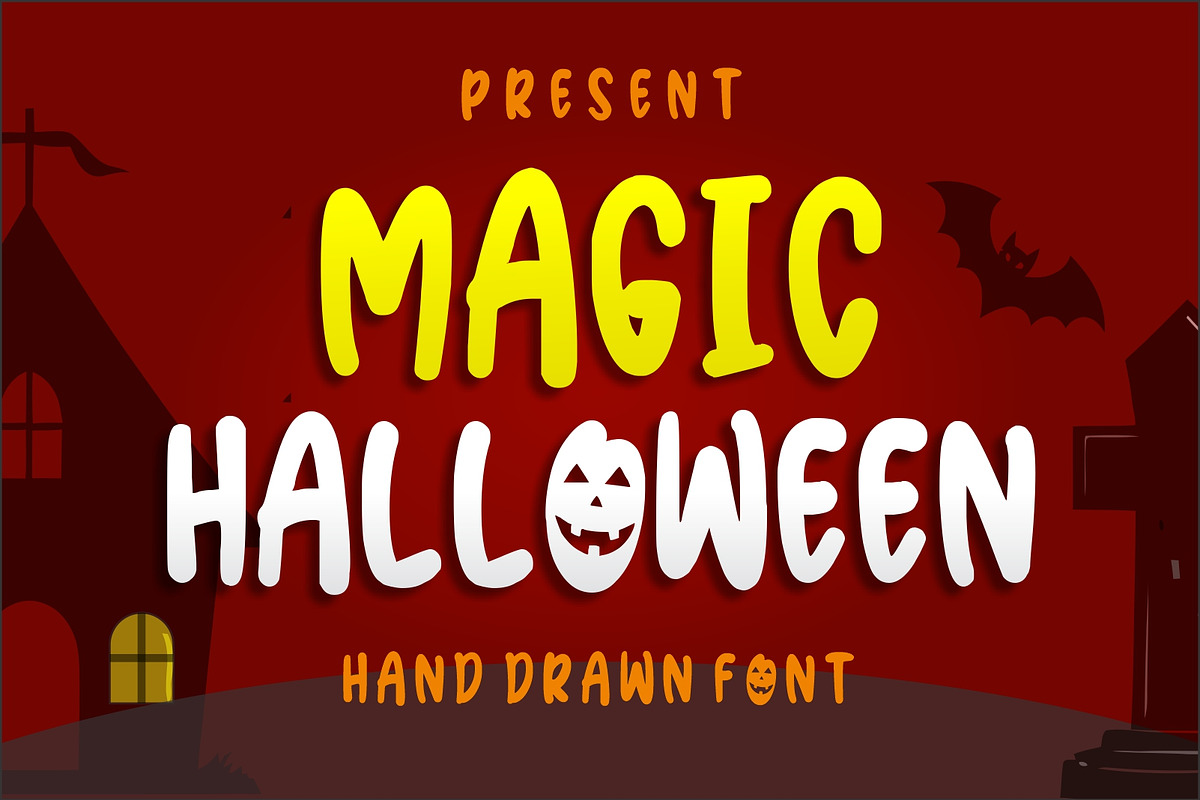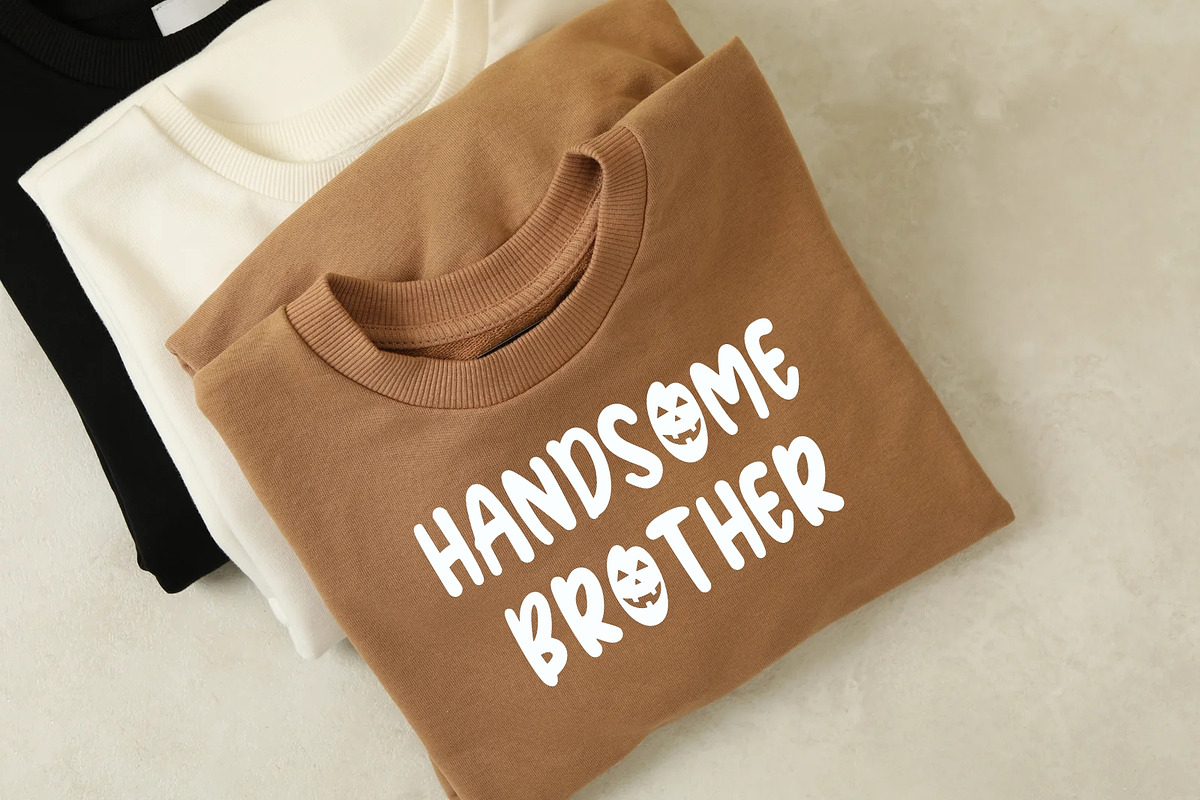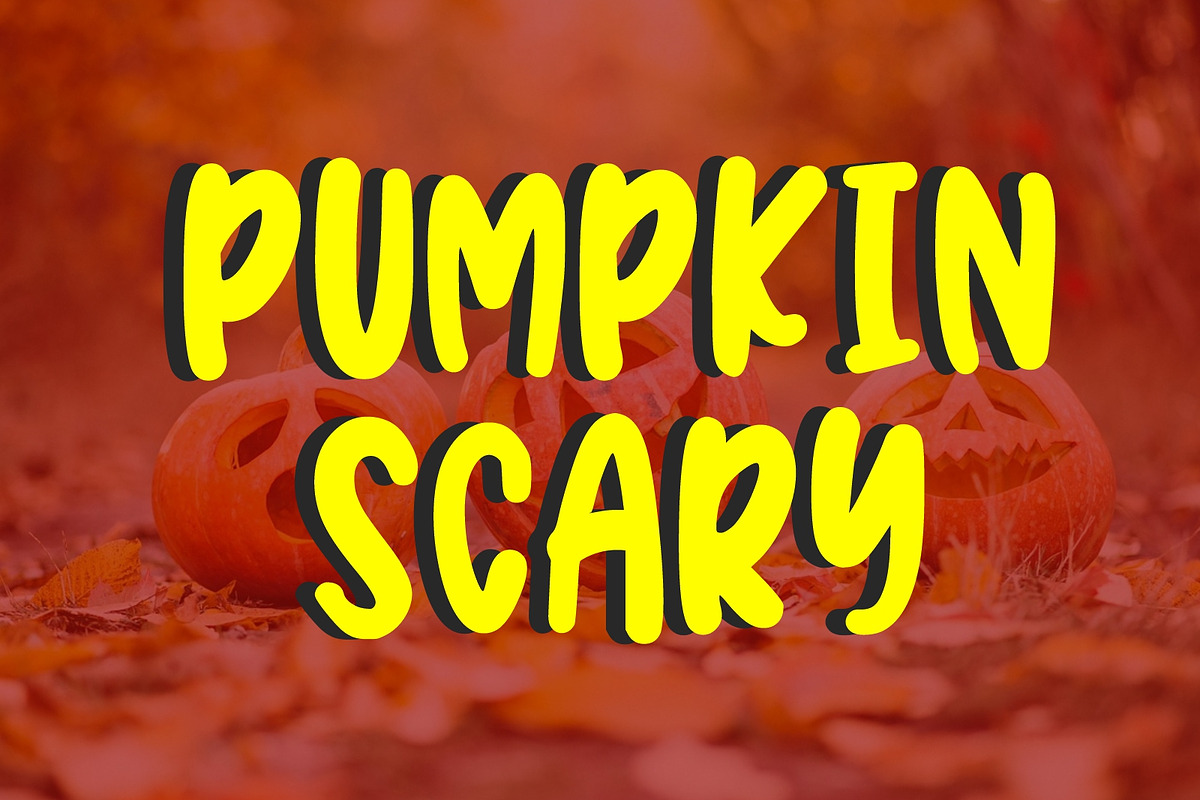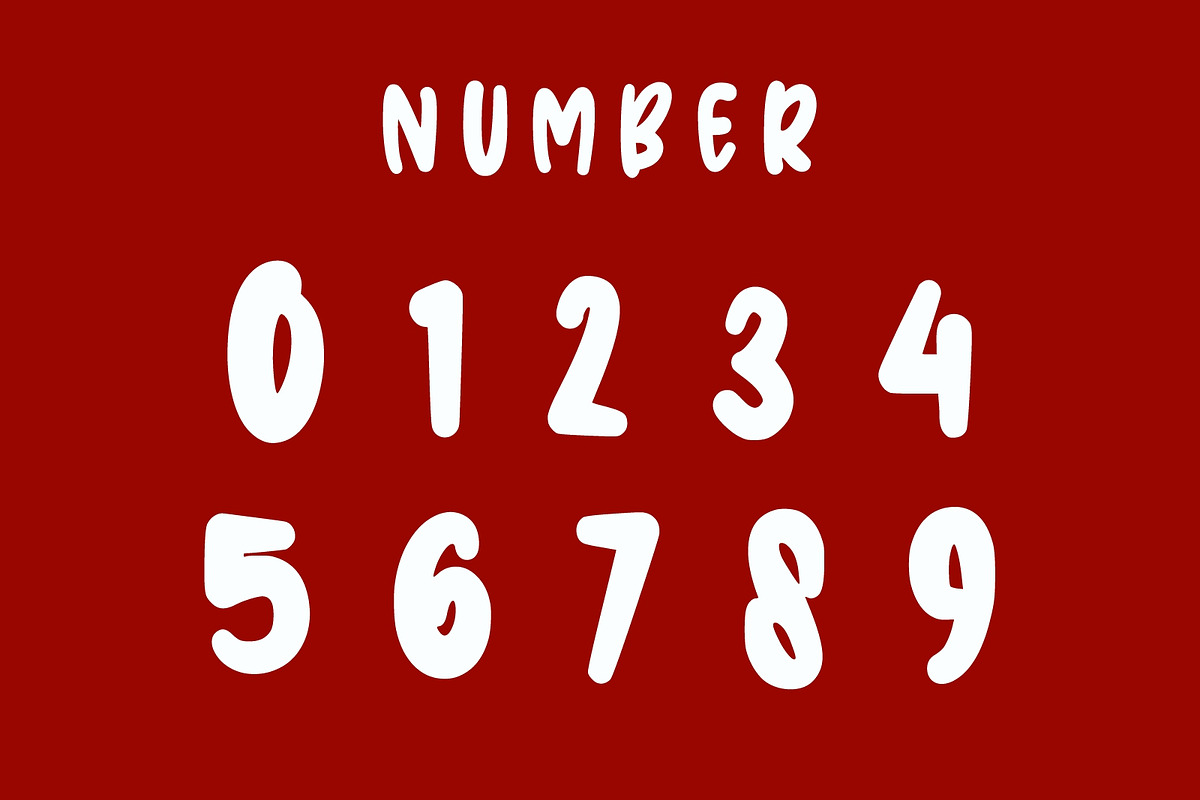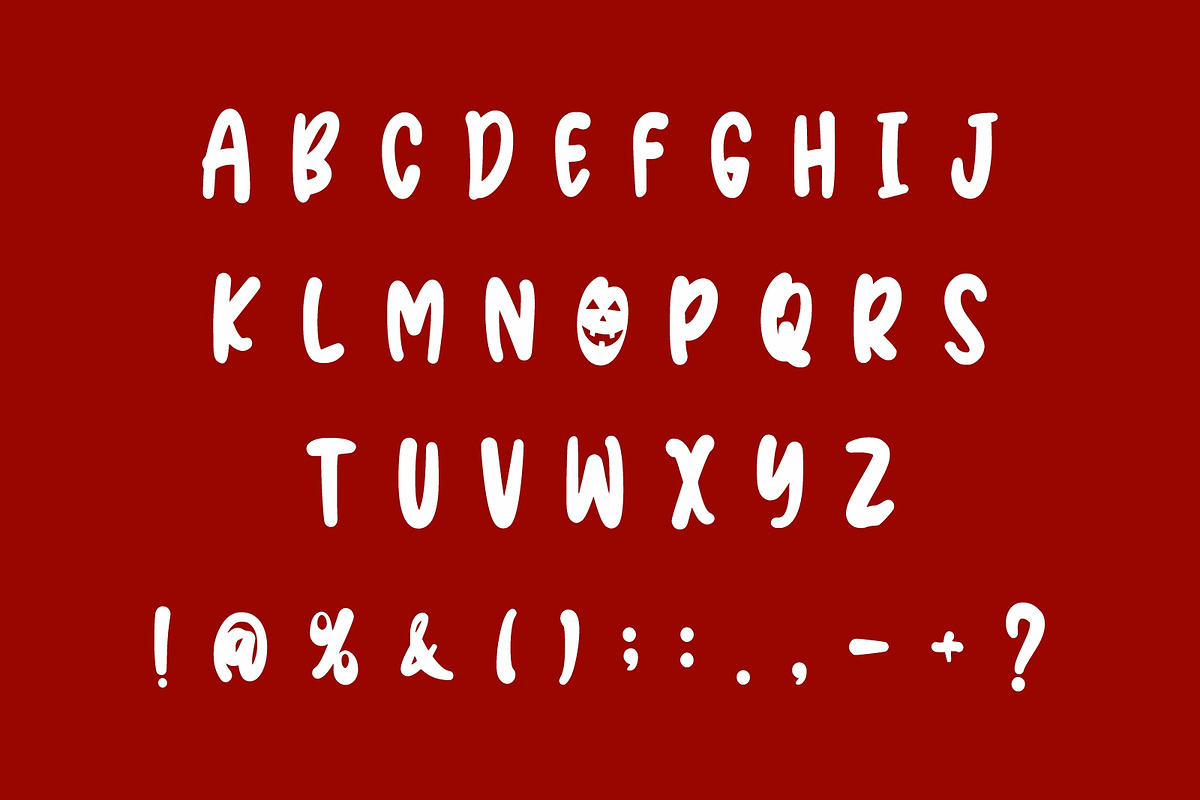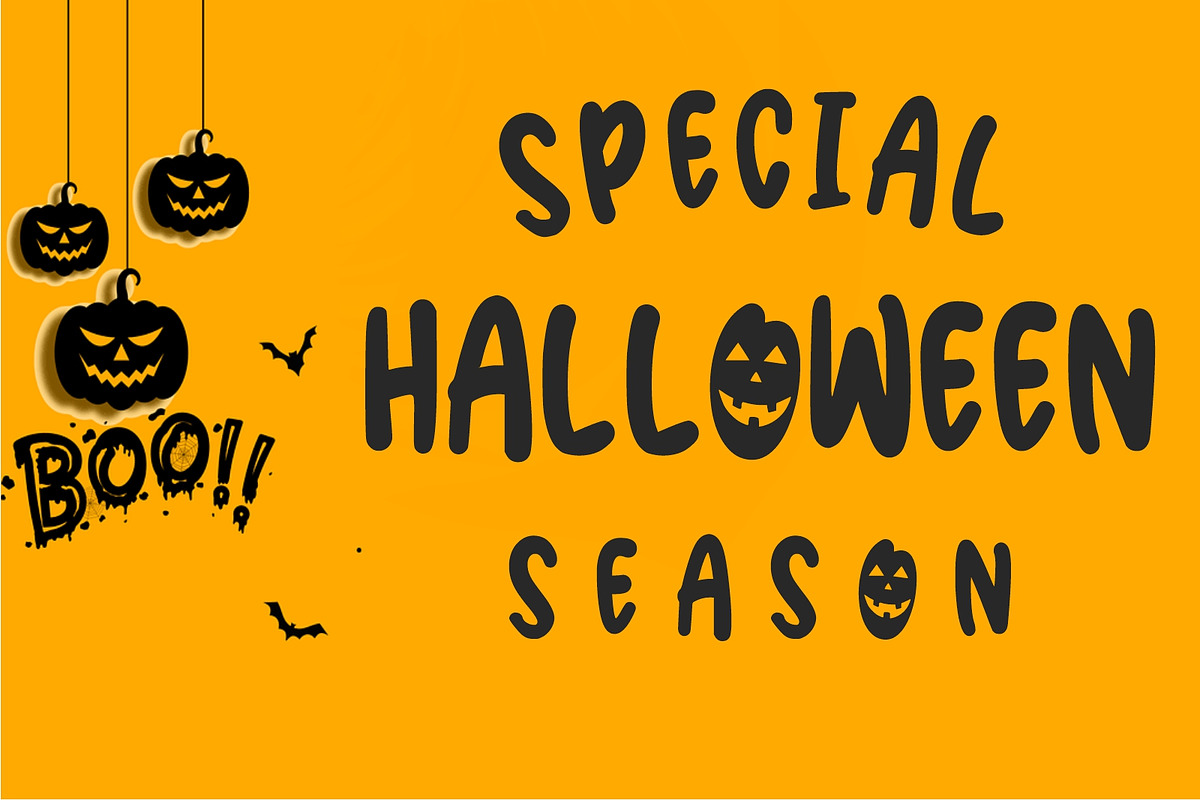
Magic Halloween
Magic Halloween s a chilling Halloween font with a cracked and jagged look that screams spooky season. Its fractured letterforms mimic broken signs and eerie movie posters, making it perfect for horror-themed designs, haunted house flyers, party invites, or creepy merch. Bold, dramatic, and unmistakably sinister.